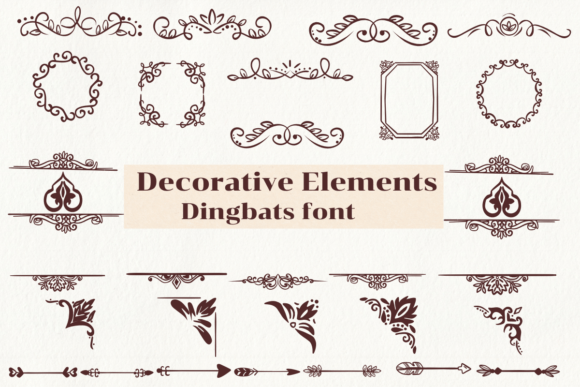
Decorative Elements Font
A decorative elements dingbat font is like a toolbox of small pictures or symbols you can use in your writing. They’re great for adding a special touch to things like cards, posters, or even just for fun messages!